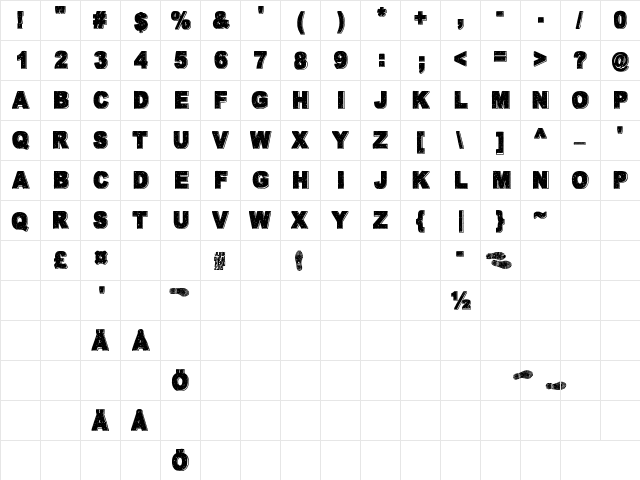
Walk with me now Regular
| Designer | junkohanhero |
Design Context for Walk with me now Typeface
Walk with me now offers clean, dependable letterforms without strong stylistic allegiance, making it a practical choice for designers who need flexibility.